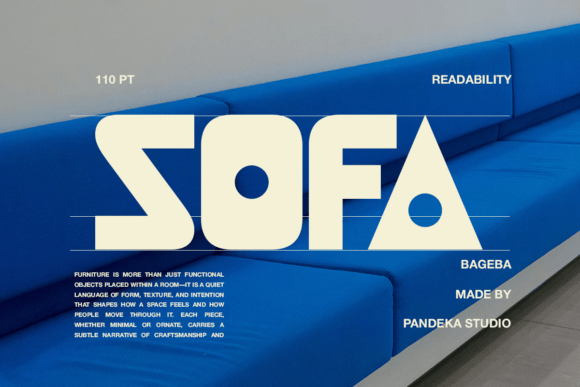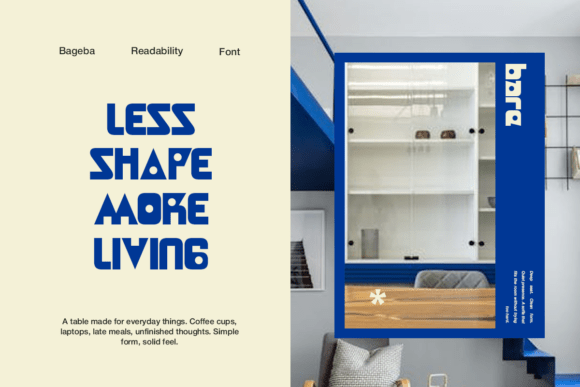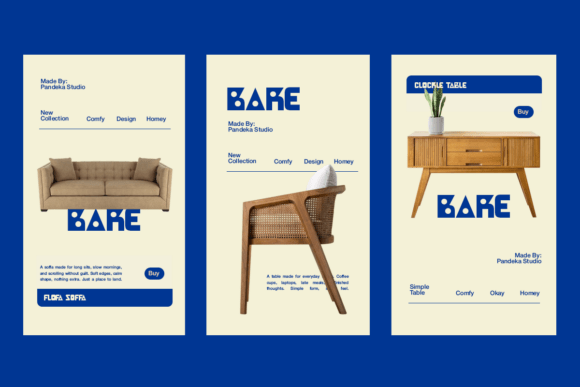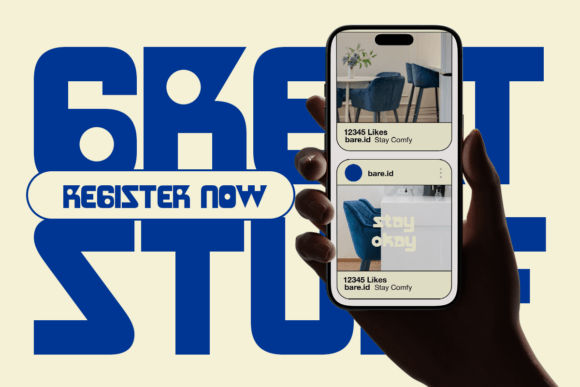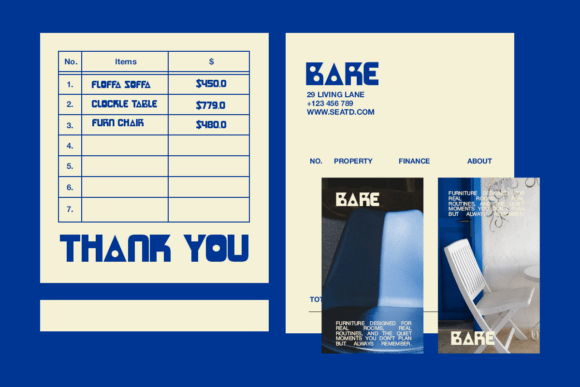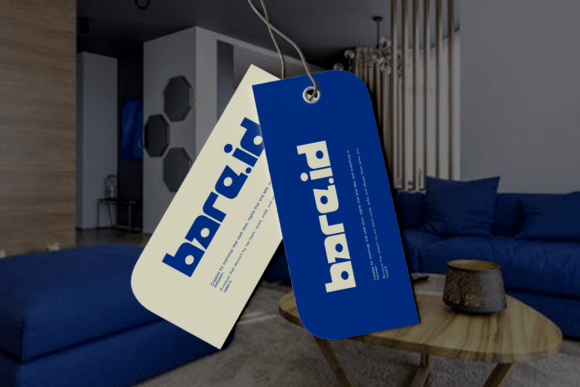
Introducing Bageba Font: The Ultimate Choice for Modern Property and Furniture Branding
In the world of design, a font can make all the difference in creating a lasting impression. For modern property and furniture branding, a bold and distinctive display font is essential for standing out in a crowded market. This is where Bageba Font comes in – a game-changing typeface that embodies confidence, style, and professionalism. In this article, we’ll explore the unique features of Bageba Font and why it’s the perfect choice for designers and crafters looking to elevate their branding projects.
Design Characteristics of Bageba Font
Bageba Font is built with strong geometric shapes, sharp angles, and signature circular cut details that create a confident and structured visual identity. The design feels solid yet stylish, making it highly suitable for projects that need a modern, professional, and memorable look. The font’s geometric shapes and sharp angles evoke a sense of architectural forms and interior aesthetics, making it an ideal choice for real estate branding, furniture catalogs, and interior design projects.
Inspiration and Design Philosophy
Bageba Font is inspired by the clean lines, precision, and functionality of architectural forms and interior design. The design philosophy behind Bageba is to create a font that not only looks modern and stylish but also offers excellent readability. The font’s unique character is achieved through its signature circular cut details, which add a touch of sophistication and elegance to any design project.
Key Features and Benefits of Bageba Font
- Bold and Distinctive: Bageba Font is a bold and distinctive display font that commands attention and makes a lasting impression.
- Geometric Shapes: The font’s strong geometric shapes and sharp angles create a confident and structured visual identity.
- Signature Circular Cut Details: The font’s signature circular cut details add a touch of sophistication and elegance to any design project.
- Excellent Readability: Bageba Font offers excellent readability, making it perfect for projects that require clear and concise communication.
- Versatile: The font is versatile and can be used for a wide range of design projects, including logos, packaging, posters, and editorial layouts.
Use Cases for Bageba Font
Bageba Font is perfect for designers and crafters looking to create modern, professional, and memorable branding projects. Some of the ideal use cases for Bageba Font include:
- Real Estate Branding: Bageba Font is an excellent choice for real estate branding, including property logos, brochures, and website headers.
- Furniture Catalogs: The font is perfect for furniture catalogs, adding a touch of modernity and sophistication to product listings and descriptions.
- Interior Design Projects: Bageba Font is ideal for interior design projects, including branding, packaging, and marketing materials.
- Logos and Packaging: The font can be used for creating logos and packaging designs that require a bold and distinctive look.
- Posters and Editorial Layouts: Bageba Font can be used for creating posters and editorial layouts that require a modern and stylish look.
In conclusion, Bageba Font is a game-changing typeface that offers a unique blend of confidence, style, and professionalism. Its bold and distinctive design, combined with excellent readability, makes it the perfect choice for designers and crafters looking to elevate their branding projects. Whether you’re working on real estate branding, furniture catalogs, interior design projects, or logos and packaging, Bageba Font is the ultimate choice for creating modern, professional, and memorable designs.